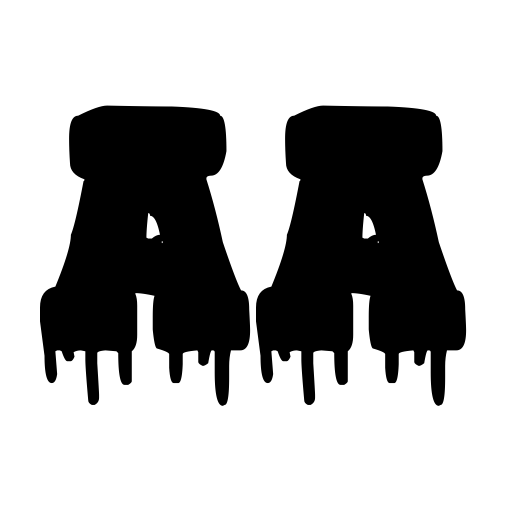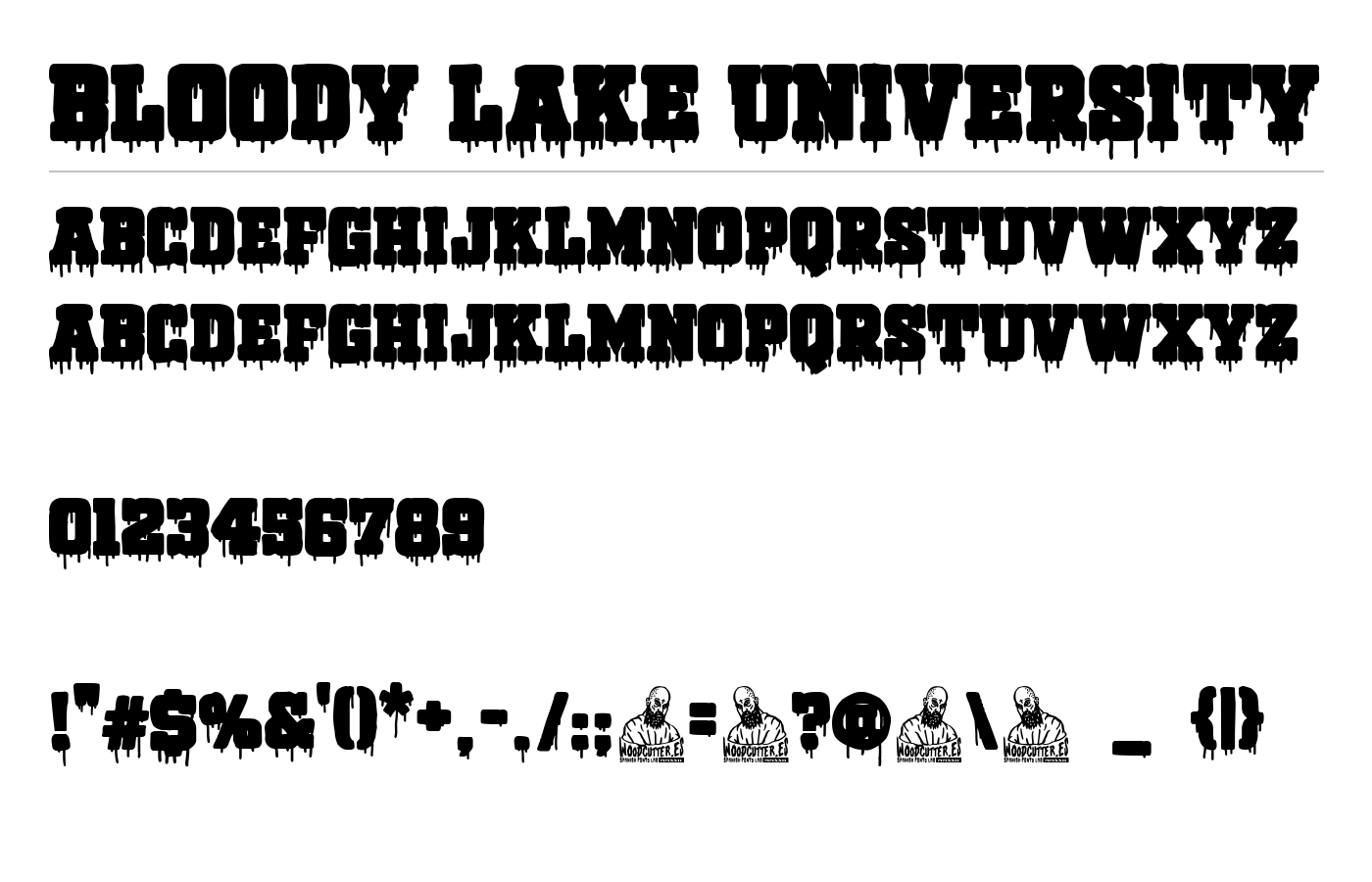
Bloody Lake University is a bold, condensed slab serif font with a dripping effect that adds a dramatic and eerie vibe. Its heavy weight and unique, melting letterforms make it perfect for eye-catching headlines, Halloween-themed designs, or horror-related branding. This font conveys a spooky, playful personality while maintaining strong readability and impact.
Bloody Lake University Font
About Bloody Lake University Font